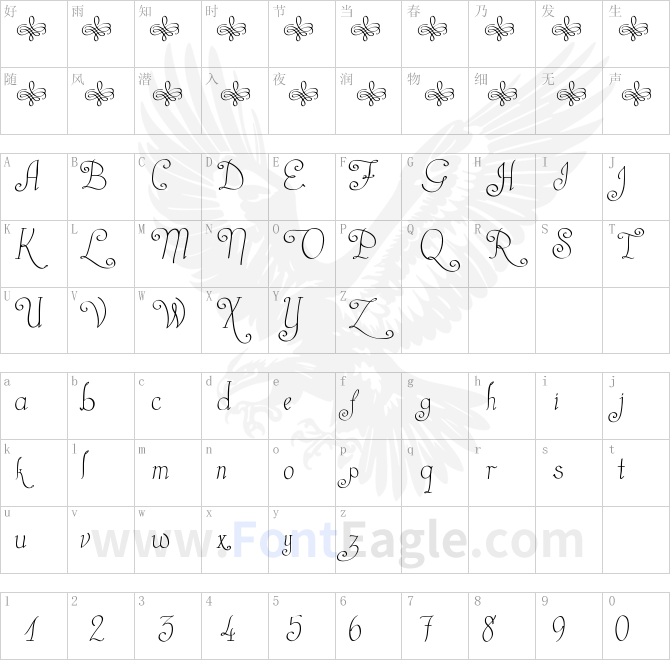
- Font name:Castal Street
Castal-Street is a great font, widely used in graphic design, single-page menu design, poster design and other fields, and is deeply loved by designers.Castal-Street download.